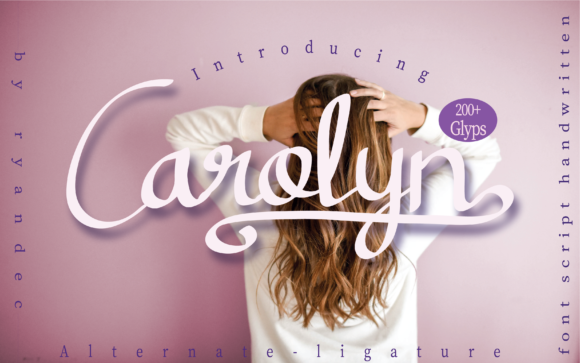
Behold, Carolyn Font, an exquisite script masterpiece conjured by the creative minds at Ryan Creative. This elegant and graceful typeface captures the essence of timeless beauty. Each letter, meticulously crafted, dances across your screen, leaving a trail of enchantment. Carolyn isn't just a font; it's an artistic expression, a whisper of creativity that brings your words to life.
Beyond its aesthetic charm, Carolyn Font possesses unmatched versatility. From heartfelt love letters to captivating invitations, from playful greeting cards to sophisticated marketing materials, Carolyn dances across any canvas, imbuing it with an undeniable touch of elegance. It's a font that speaks to your audience, stirring emotions and leaving a lasting impression.
Carolyn Font's beauty transcends mere words. It's a visual symphony, a harmonious blend of curves and lines that captivates the eye. Its smooth, flowing strokes evoke a sense of tranquility, inviting viewers to immerse themselves in your message. Whether you're a seasoned designer or a creative novice, Carolyn Font elevates your designs to new heights, transforming them into works of art.
But Carolyn Font is more than just a pretty face. It's a font designed with intention, catering to the needs of modern creatives. With its PUA encoding, you can effortlessly access all glyphs and swashes, unlocking a realm of creative possibilities. This font is your gateway to a world of endless expression, where your imagination knows no bounds.
Whether you're a seasoned calligrapher or a budding artist, Carolyn Font is your perfect companion. Its enchanting beauty and unwavering versatility make it an indispensable tool for any creative endeavor. Embrace the transformative power of Carolyn Font today and watch your designs blossom into masterpieces.